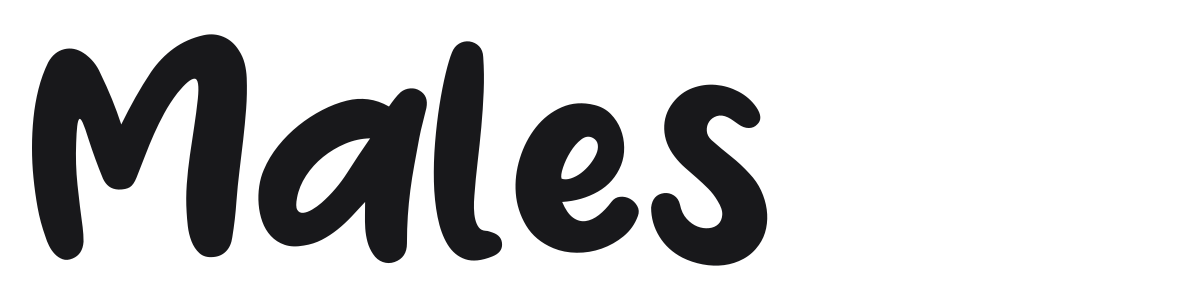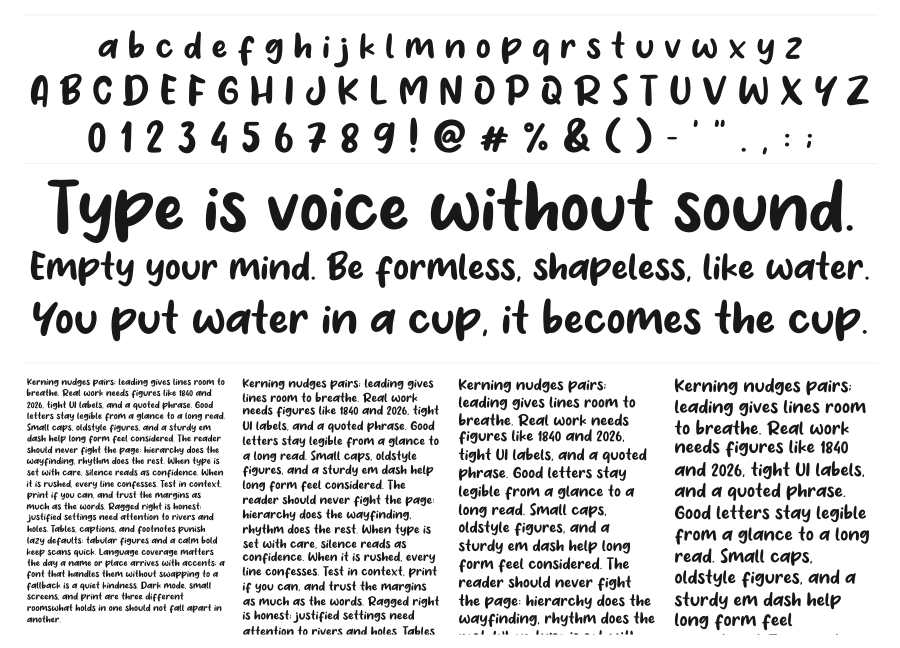
Males
Males is a bold casual script with chunky rounded strokes and a natural hand-lettered feel. The thick, nearly monoweight characters flow with just enough irregularity to read as genuinely handwritten rather than mechanical. It carries warmth and energy that works well for logos, packaging, and anywhere a friendly tone matters.